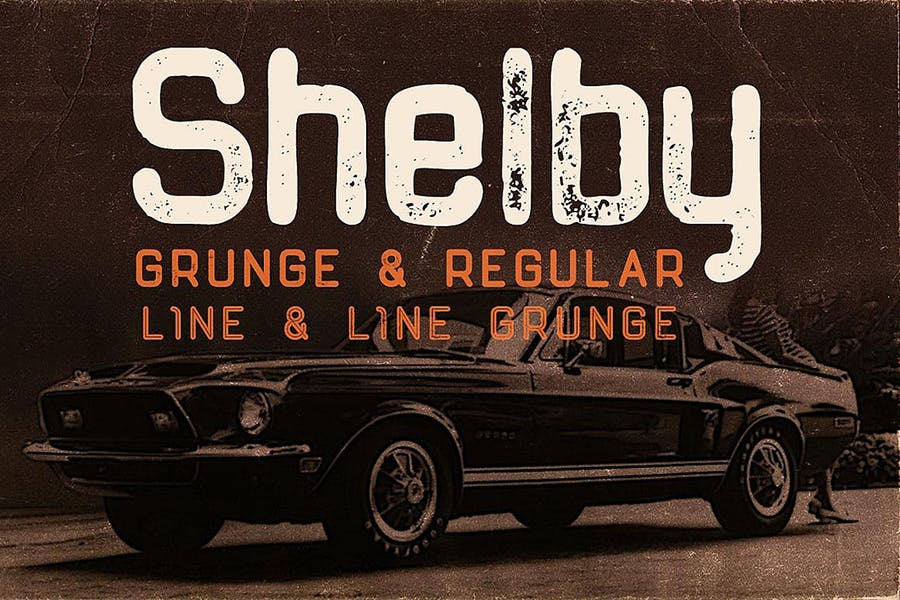
Shelby Typeface Font
Shelby Typeface Font is perfect for classic car branding, automotive logo design, vintage garage signage, racing event posters, motorcycle dealership materials, classic American diner menus, retro gas station identity, automotive magazine layouts, hot rod show advertising, vintage speed shop branding, classic car club materials, and nostalgic Americana projects.
Shelby Typeface Font is exciting because it captures the legendary spirit of American automotive excellence with bold, race-inspired letterforms that evoke the golden age of muscle cars and high-performance vehicles, while delivering modern functionality that perfectly suits contemporary brands seeking authentic automotive heritage and speed-focused design appeal.
The Shelby Typeface Font family includes performance variations: Regular, Bold, Condensed, Extended, Racing stripes, and Chrome effects, providing designers with a complete automotive typography toolkit to create powerful compositions that celebrate American car culture and racing heritage.
Rev up your designs with Shelby Typeface Font Free Download. This high-performance typeface brings the legendary spirit of American automotive excellence to contemporary design projects. Whether you're creating branding for automotive businesses, designing promotional materials for racing events, or developing vintage-inspired marketing campaigns, Shelby Typeface Font delivers authentic muscle car character with professional polish.
The font's powerfully crafted letterforms reflect the bold engineering and performance-focused design of classic American sports cars, with strong horizontal emphasis that mirrors racing stripes and vertical elements that echo the clean lines of legendary automotive design. Each character embodies the speed, power, and precision that define automotive excellence.
Shelby Typeface Font excels in creating memorable brand identities for businesses connected to automotive culture, performance, and American heritage. Its commanding presence transforms ordinary communications into high-octane statements that resonate with enthusiasts and professionals who appreciate automotive craftsmanship and racing tradition.
Professional designers appreciate how Shelby Typeface Font maintains authentic automotive character without becoming a novelty typeface. The balanced proportions and thoughtful spacing ensure excellent performance in both large display applications and smaller text blocks, making it versatile enough for complete automotive brand systems.
This remarkable typeface brings instant credibility to automotive ventures and performance-oriented businesses. From custom car builders to racing equipment manufacturers, Shelby Typeface Font creates lasting impressions that communicate speed, power, and the enduring appeal of American automotive excellence.